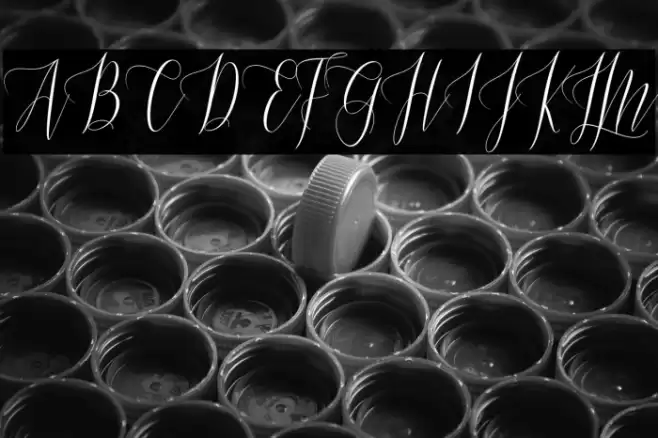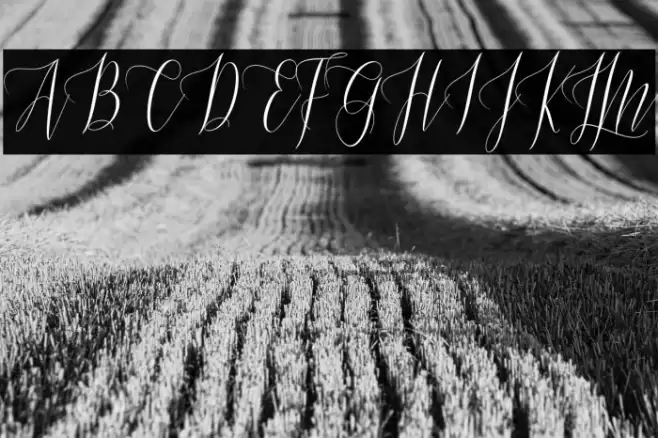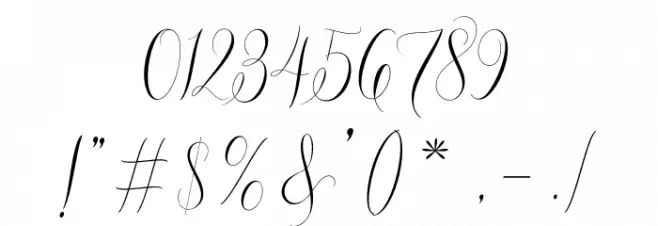
Masturascript Font
Masturascript Description
This elegant script font features a flowing, cursive style with intricate loops and flourishes. The characters are delicately crafted, showcasing a high level of artistry and sophistication. The uppercase letters are particularly ornate, with sweeping lines that extend beyond the baseline, creating a sense of movement and grace. The lowercase letters maintain a consistent style, with smooth connections between strokes, enhancing readability while preserving the decorative nature. Numerals and special characters are designed to match the overall aesthetic, ensuring a cohesive look across all text. This font exudes a sense of luxury and refinement, making it ideal for formal invitations, branding, and other high-end design projects.
An elegant script font with intricate loops and flourishes, exuding luxury and refinement from Uncategorized fonts.
- Font: Masturascript
- Proposed Projects: Ideal for wedding invitations, luxury branding, elegant stationery, and high-end product packaging.
- Use Case: Logos, Invitations, Branding